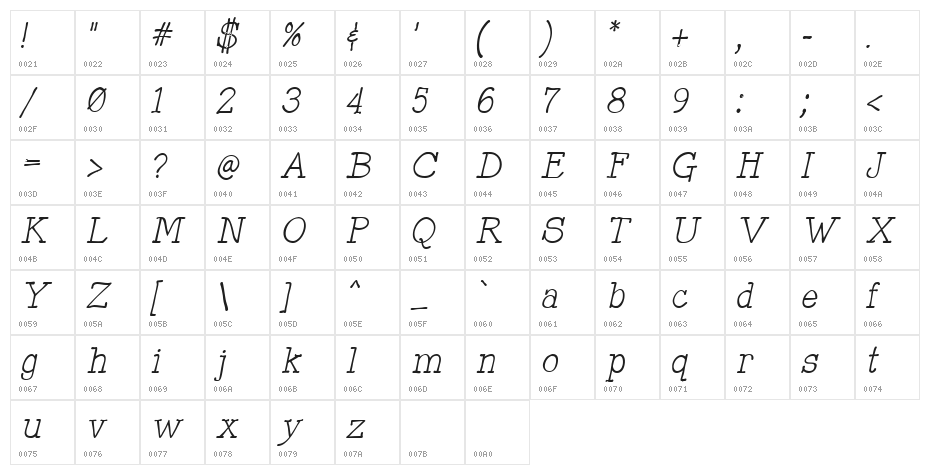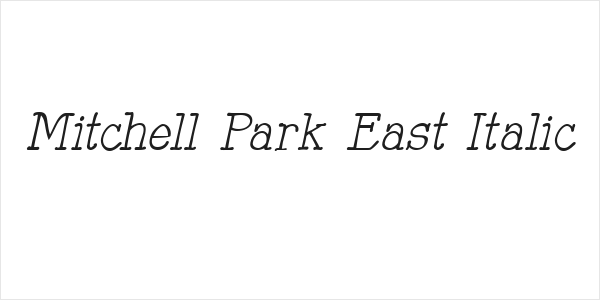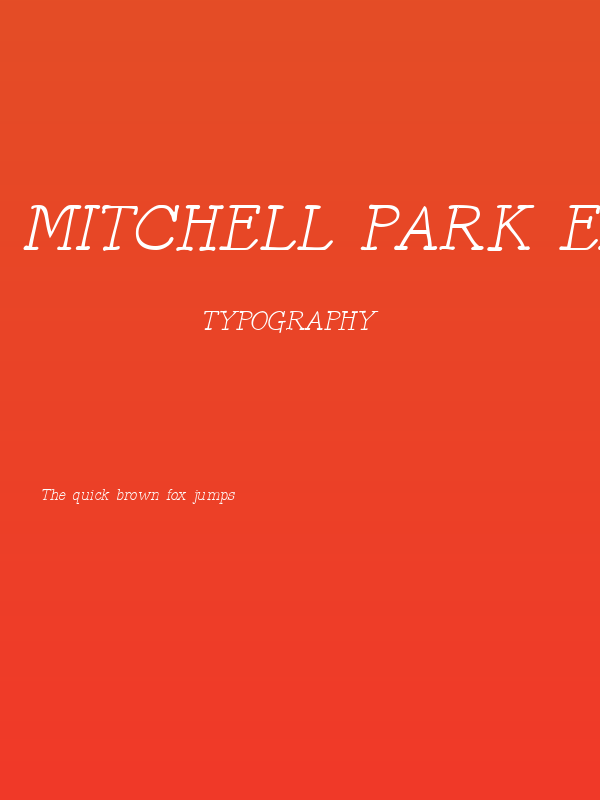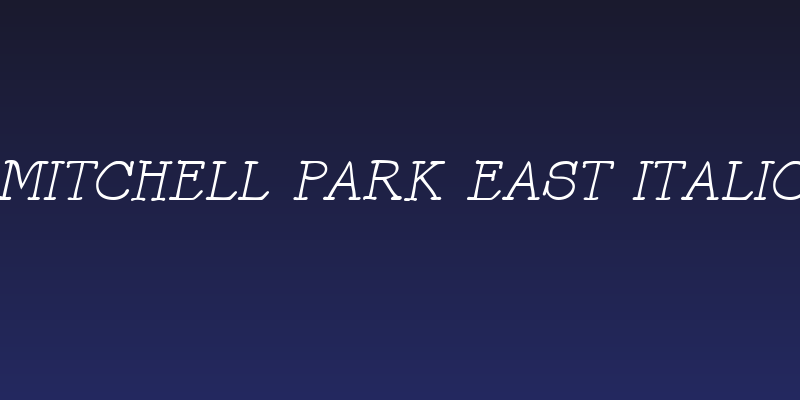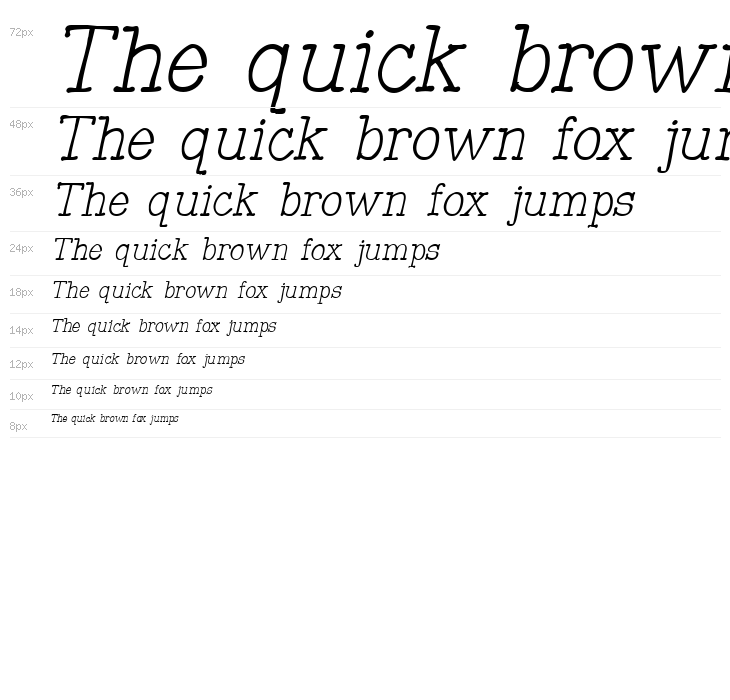
Mitchell Park East Italic Font
Mitchell Park East Italic Description
This font features a classic italic style with a distinct slant, giving it an elegant and sophisticated appearance. The characters are well-defined with a moderate contrast between thick and thin strokes, enhancing readability while maintaining a stylish flair. The uppercase letters are slightly taller than the lowercase, adding to the font's refined look. The numerals are consistent with the overall design, ensuring uniformity across different uses. Special characters are thoughtfully crafted, maintaining the font's cohesive aesthetic.
| Use Case | Headlines, Invitations, Editorial design |
| Proposed Projects | Ideal for formal invitations, elegant branding, and editorial design where a touch of sophistication is desired. |